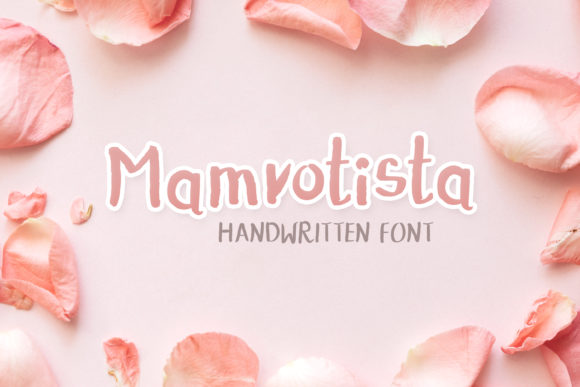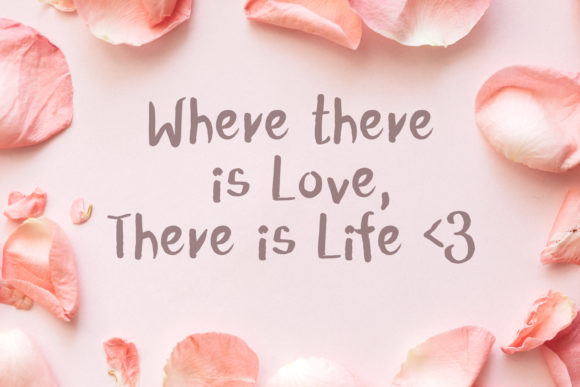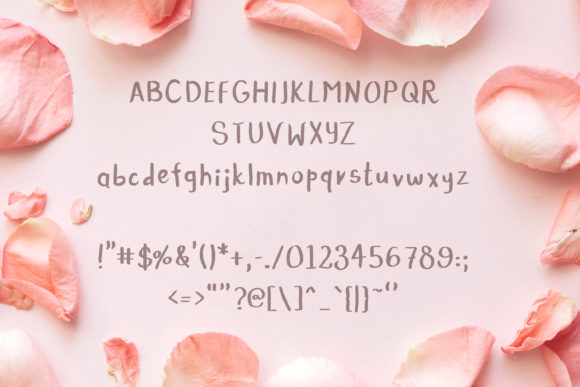
Mamrotista Font
About Mamrotista Font
Mamrotista is a cute and casual handwritten font with an incredibly friendly feel. Use this gorgeous and unique font to bring any DIY project to life!